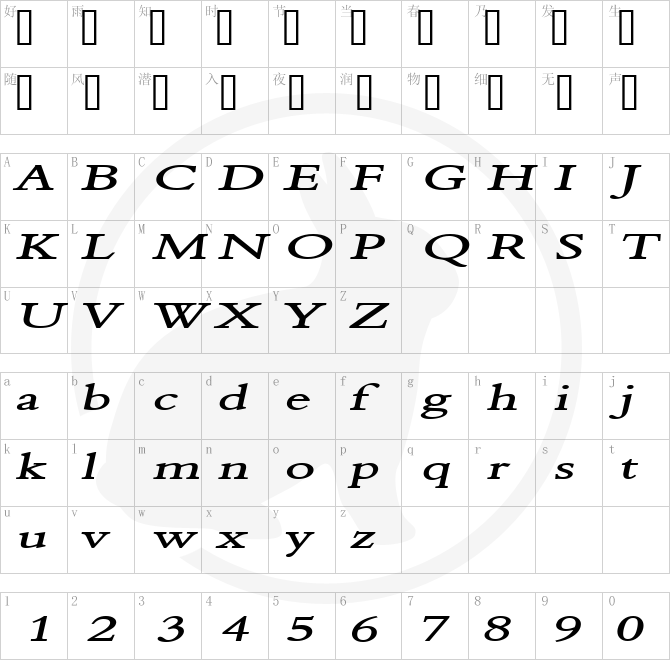
- Font Name:Nadine 2 Extended
Nadine-2-Extended-BoldItalic.ttf is a very beautiful artistic font, Nadine-2-Extended-BoldItalic.ttf is widely used in the design and printing of various books and pictures,Nadine-2-Extended-BoldItalic.ttf has a strong visual impact,Nadine-2-Extended-BoldItalic.ttf is a commonly used font in newspapers, magazines and books, and is used in posters, e-commerce Poster design, store design, logo design, font design and other fields.Nadine-2-Extended-BoldItalic.